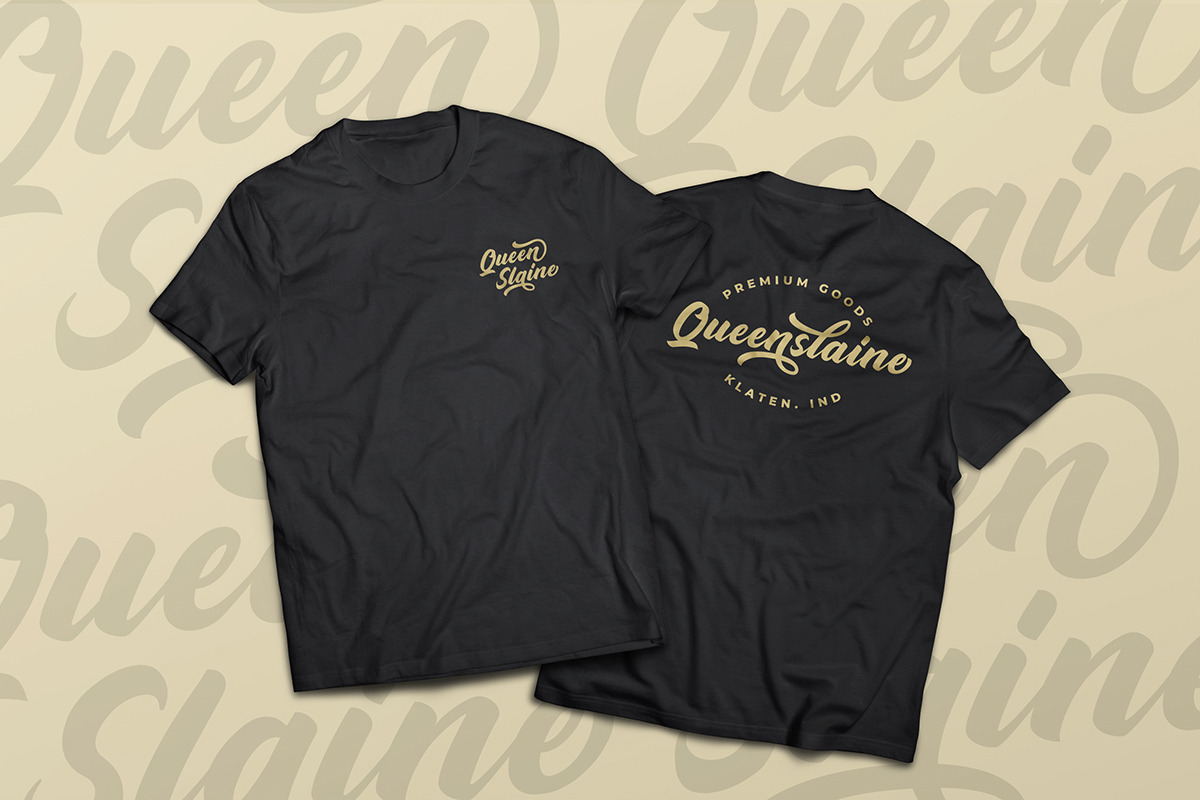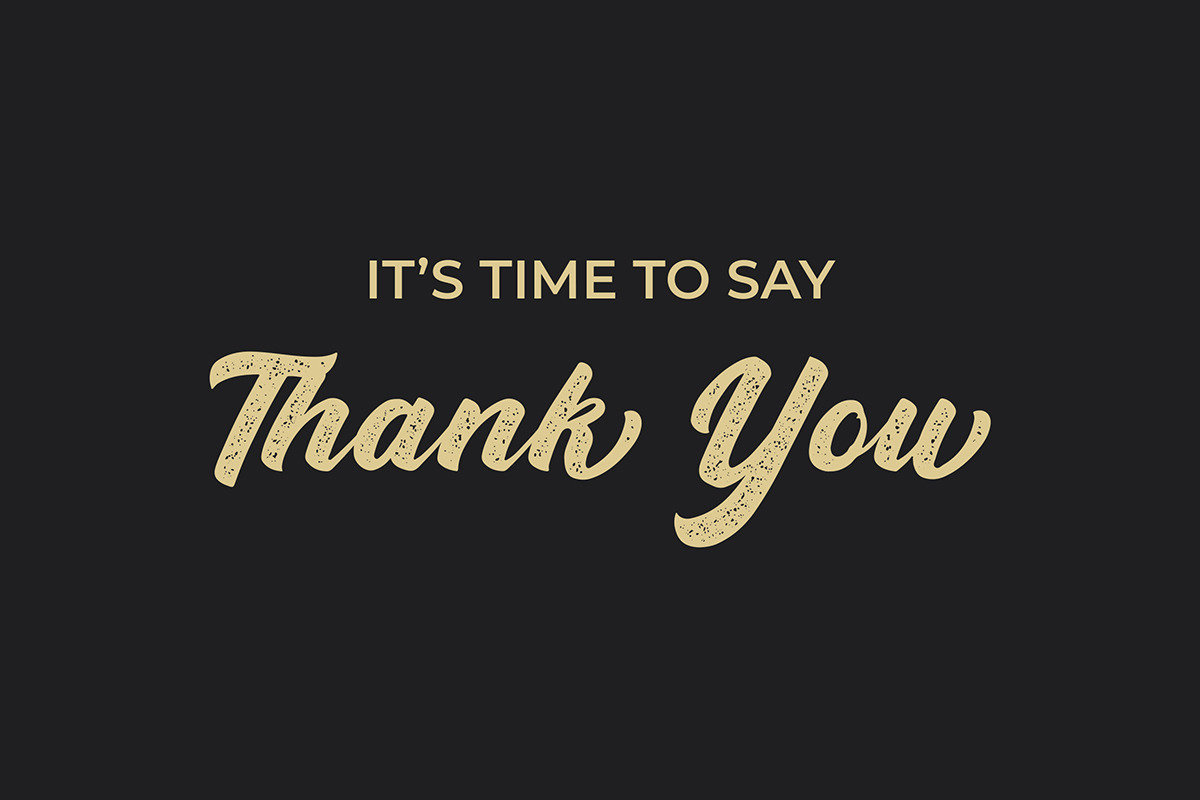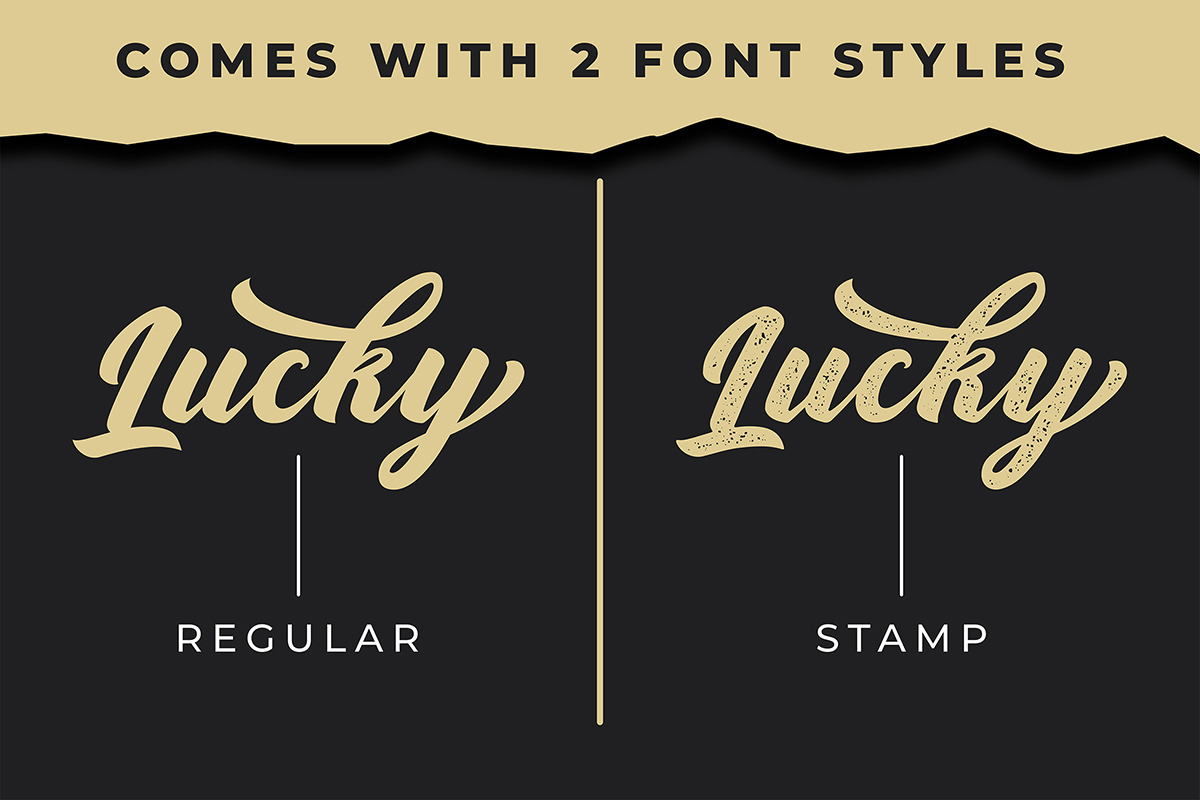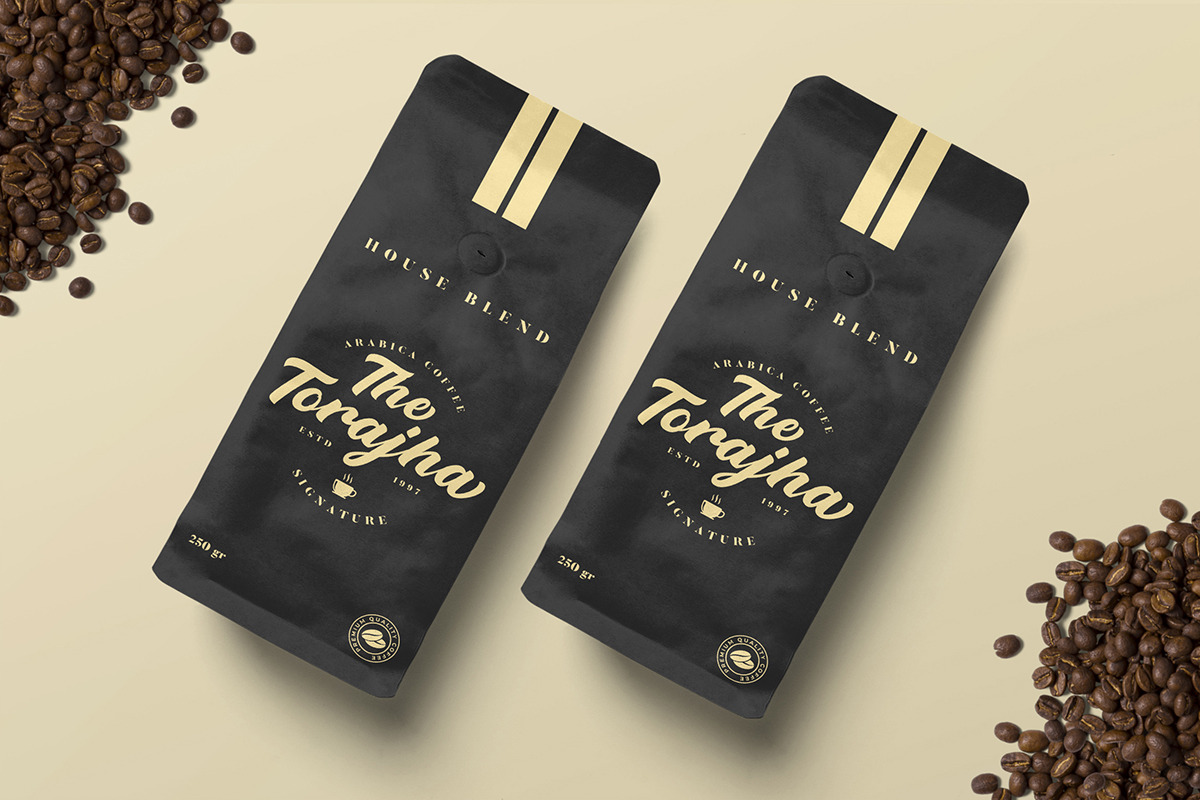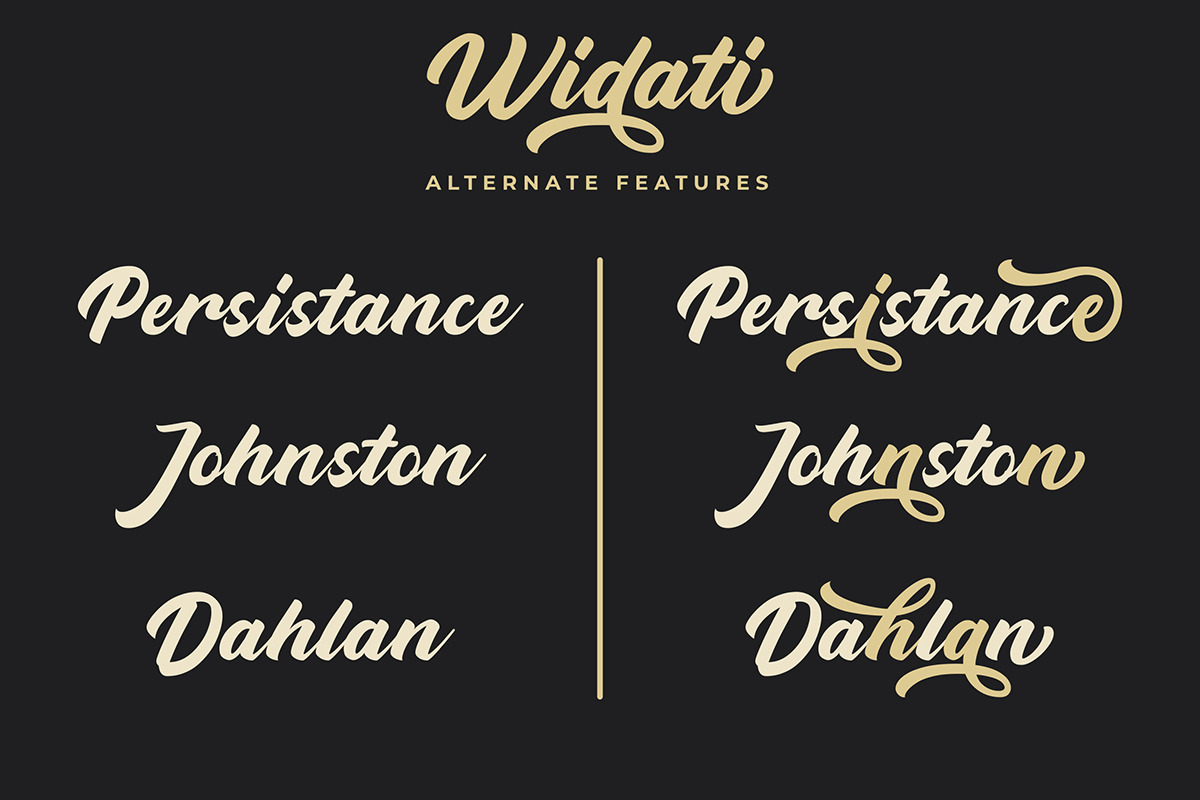
Widati Script Clean & Rough + Bonus
Please welcome our newest script font, Widati Script, a beautiful script font with unique alternates. This font perfectly made to be applied especially in logo, and the other various formal forms such as labels, logos, packaging, fashion, or any type of advertising purpose.
- alternates